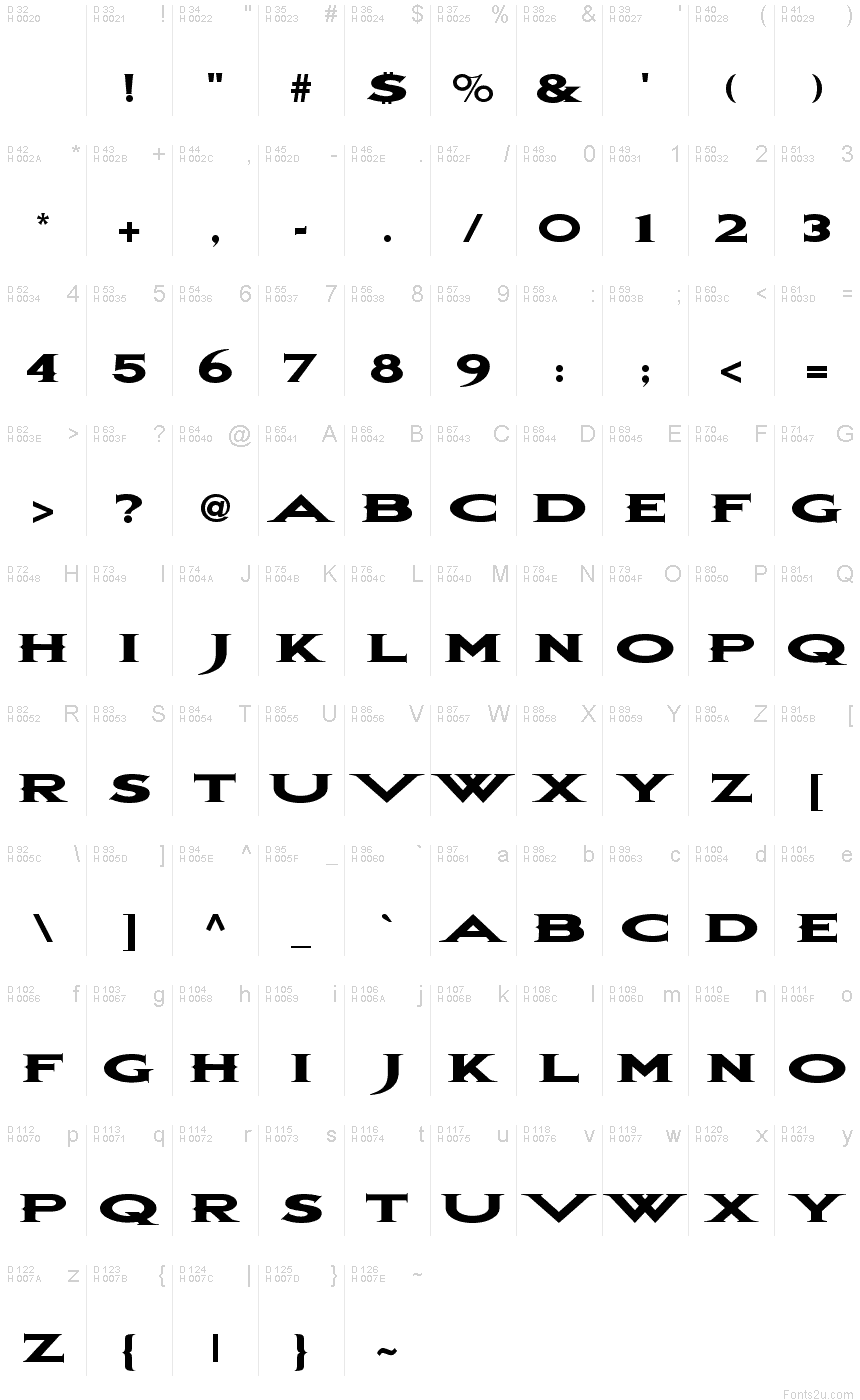
BonJovi
BonJovi font is a free retro serif typeface that looks like it just stepped off a ‘90s rock poster. Tall, blade-like letterforms meet wide, glossy oval shapes that feel almost metallic, giving every word a dramatic, stage-lit presence. The rhythm is tight and intense, so short phrases hit hard, like a band name on a marquee or a title across a tour shirt.
Using BonJovi, you get a bold, theatrical voice that shines on band logos, album covers, gig posters, nightlife flyers, fan merch, and edgy branding. This free font thrives in big sizes where its stretched curves and sharp edges can really flex. For body copy or fine print, pair it with a clean, neutral sans serif to keep the spotlight on BonJovi’s high-drama character.